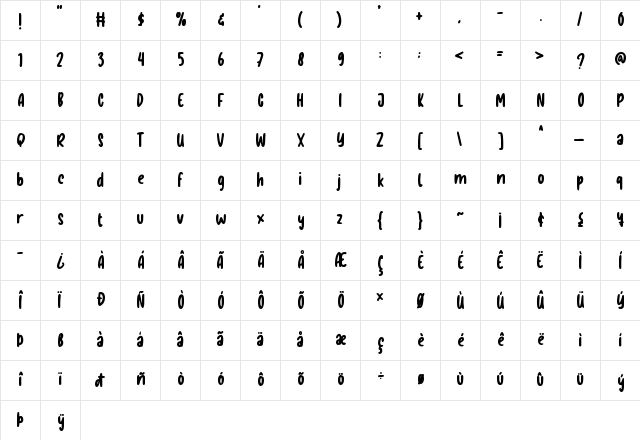
Koala Family Regular
| Designer | Muhamad Yusron Billah |
Design Context for Koala Family Typeface
Koala Family is a composed and adaptable typeface that performs quietly and consistently across a wide range of design contexts.